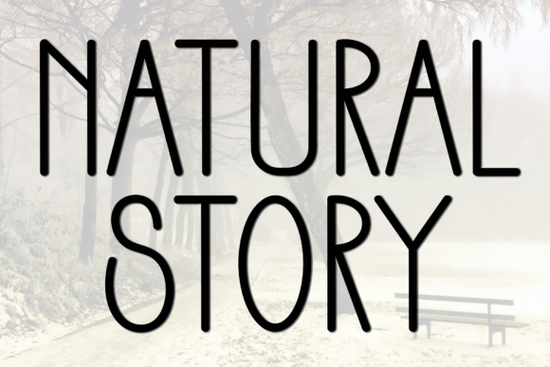
If you're looking for a font that feels warm, approachable, and quietly expressive especially for storytelling, greeting cards, or handmade product labels Natural Story Font fits naturally into your workflow. It’s not overly decorative or rigid; instead, it balances soft curves with intentional contrast in stroke weight, giving each letter a gentle, hand-crafted presence without needing actual handwriting. That makes it especially useful if you’re designing for audiences who value authenticity think baby shower invites, small-batch soap labels, journal covers, or printable wall art for nurseries and cozy home spaces.
What kind of projects work best with Natural Story Font?
This font shines where tone matters as much as legibility. Because its rhythm feels relaxed but intentional, it pairs well with nature-inspired themes, slow-living brands, and heartfelt personal projects. You’ll often see it used on:
- Print-on-demand mugs, tote bags, and notebooks where warmth and readability go hand-in-hand
- Digital planners and habit trackers aiming for a calm, grounded aesthetic
- Wedding stationery especially for rustic, garden, or intimate ceremonies
- Small business branding for bakeries, herbal apothecaries, or children’s book illustrators
- Craft cut files for Cricut or Silhouette machines (it converts cleanly to vector paths)
It includes standard Latin characters, numerals, punctuation, and basic accented letters enough coverage for most English-language uses and many European languages. No ligatures or stylistic alternates clutter the set, which keeps things simple when you’re layering text over photos or working in time-sensitive client projects.
How does it compare to other friendly sans-serifs on Creative Fabrica?
While Twinkle Chapter Font leans into whimsy with subtle sparkle-like terminals, Natural Story stays grounded its charm comes from consistency, not embellishment. If you’ve used Mondy Font, you’ll notice Natural Story has less geometric stiffness and more organic flow. Compared to Crumbs Font, it’s less playful and more versatile across age groups and formats. And unlike Clinched Font, which carries confident, modern energy, Natural Story offers quiet confidence ideal when you want your message to feel heard, not shouted.
Where do designers actually use it and what should you watch for?
We’ve seen crafters apply Natural Story Font to laser-cut wooden tags for plant markers, using light sanding after cutting to enhance its softness visually. Print-on-demand sellers report strong performance on matte-finish apparel especially heather grey tees where the font’s subtle contrast reads clearly without harsh edges. One small bakery owner told us she uses it for weekly menu chalkboard prints (converted to SVG and traced), then overlays it onto Instagram Stories with a slight grain texture to mimic real chalk.
A few practical notes: because of its moderate x-height and open counters, it holds up well at sizes as small as 14 pt in print but avoid going smaller than 10 pt for body copy. For headlines, it works beautifully between 36–72 pt, especially with generous line spacing. If you’re pairing it with a secondary font, try a clean, neutral sans-serif like Inter or Open Sans not something with high contrast or sharp serifs, which can clash with its gentle voice.
- ✅ You need a font that feels sincere, not trendy
- ✅ Your project involves words people will read slowly like quotes, names, or short messages
- ❌ You don’t need multilingual support beyond Western European languages
If those match, Natural Story Font is ready to become part of your trusted toolkit not as a one-off novelty, but as a steady, reliable voice for your next meaningful project.